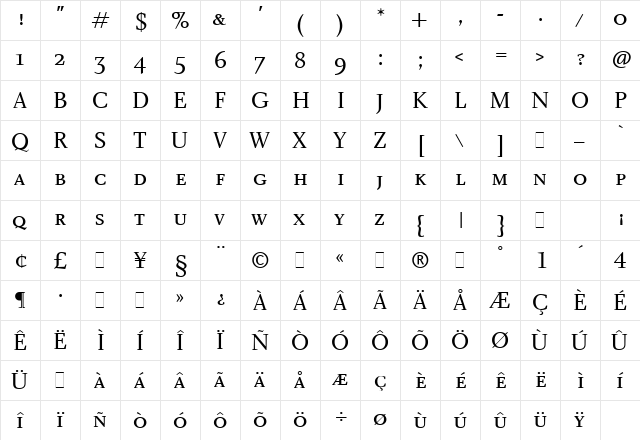
Charlotte SmallCaps
Design Context for Charlotte Typeface
Charlotte takes a measured approach to typography — its balanced proportions and neutral character make it a reliable workhorse for both digital and print work.